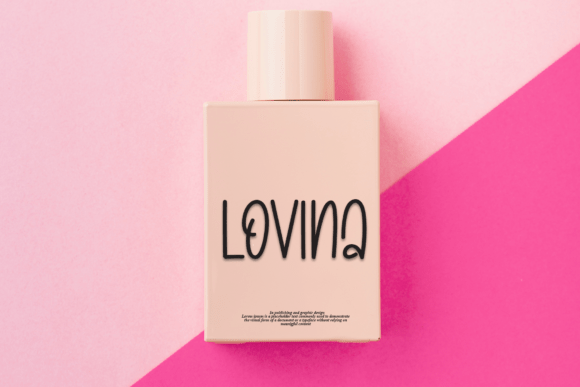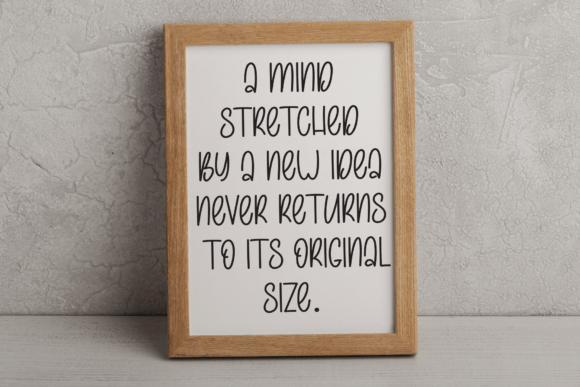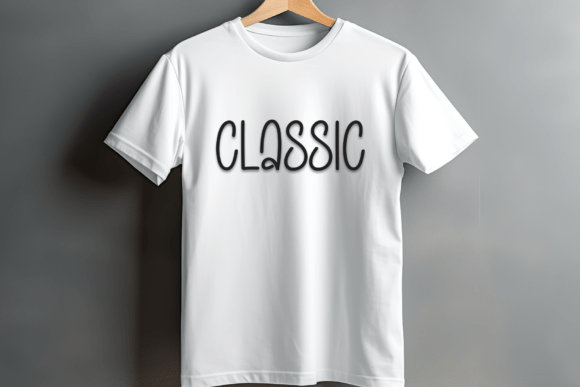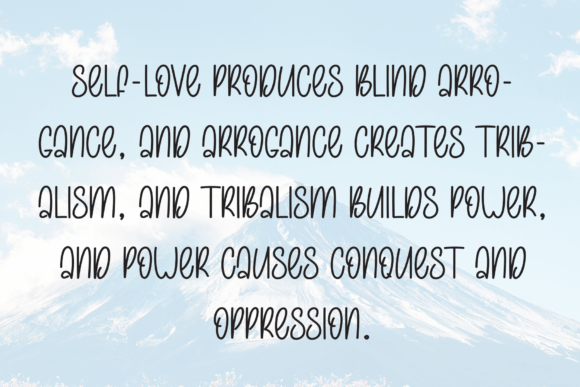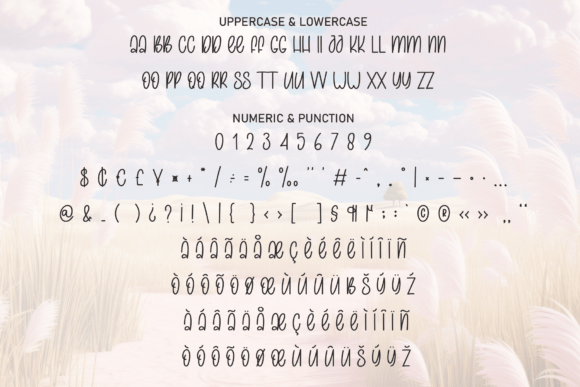
Dreaming Ground Font: The Perfect Choice for Friendly and Authentic Designs
Are you looking for a font that can add a touch of warmth and personality to your designs? Look no further than the Dreaming Ground font. This casual handwritten font is designed to bring a friendly and approachable feel to any project, making it perfect for notes, educational materials, and creative endeavors.
The Characteristics of Dreaming Ground Font
Dreaming Ground is a unique and charming font that boasts smooth strokes and relaxed letterforms, creating a natural and authentic look. Its casual and handwritten style makes it an excellent choice for designers who want to add a personal touch to their work. The font’s friendly and approachable feel is sure to resonate with your audience, making your designs more relatable and engaging.
Dreaming Ground font is versatile and can be used for a wide range of design projects. Whether you’re creating notes, educational materials, or working on a creative project, this font is sure to add warmth, clarity, and a personal touch. Its legibility and readability make it an excellent choice for body text, while its unique style ensures that your headings and titles will stand out.
Benefits of Using Dreaming Ground Font
- Warmth and Personality: Dreaming Ground font adds a touch of warmth and personality to your designs, making them more relatable and engaging.
- Legibility and Readability: The font’s smooth strokes and relaxed letterforms ensure that your text is easy to read and understand.
- Versatility: Dreaming Ground font can be used for a wide range of design projects, from notes and educational materials to creative endeavors.
- Unique Style: The font’s casual and handwritten style ensures that your designs will stand out from the crowd.
- Pair it with Other Fonts: Combine Dreaming Ground font with other fonts to create a unique and visually appealing design.
- Use it for Headings and Titles: Use Dreaming Ground font for headings and titles to add a touch of personality and style.
Dreaming Ground font is a versatile and charming font that can add a touch of warmth and personality to any design. Its smooth strokes and relaxed letterforms create a natural and authentic look, making it perfect for notes, educational materials, and creative projects. With its legibility, readability, and unique style, Dreaming Ground font is sure to become a favorite among designers and crafters.